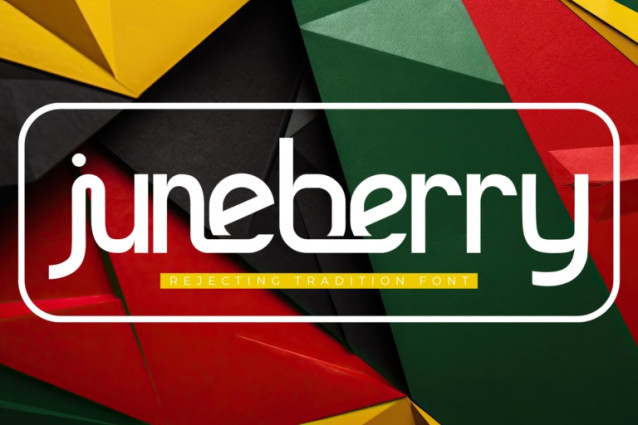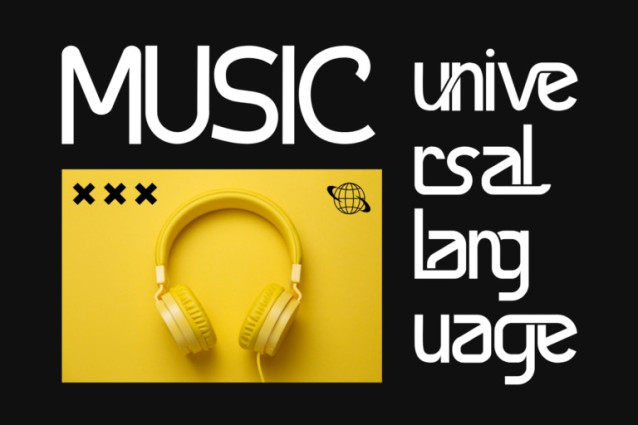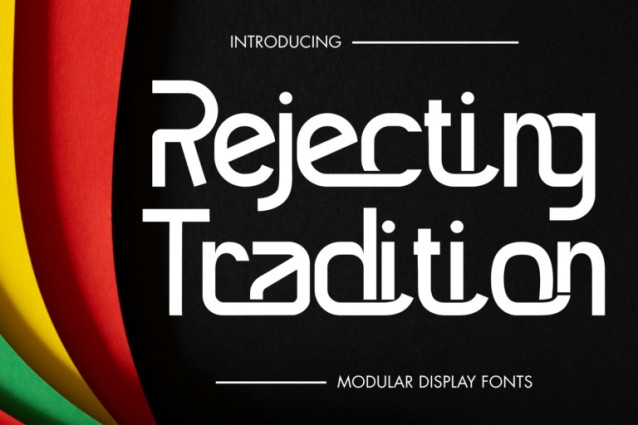
Rejecting Tradition Font
Rejecting Tradition – Futuristic Font is a futuristic geometric sans-serif display font designed to challenge conventions and embrace bold innovation. With its clean-cut architecture and stylized curves that bend beneath the baseline, this typeface projects confidence, clarity, and a sense of technological rebellion.
Ideal for branding, editorial layouts, digital interfaces, posters, and album covers that need a distinct voice, Rejecting Tradition strikes the perfect chord between structure and subversion. Whether you’re building a cyberpunk aesthetic, tech startup brand, or avant-garde fashion label, this font adds a crisp, modern edge to your visual language.
Unique geometric terminals and horizontal cuts
About 100 ligatures combined with Stylistic Alternates Font: